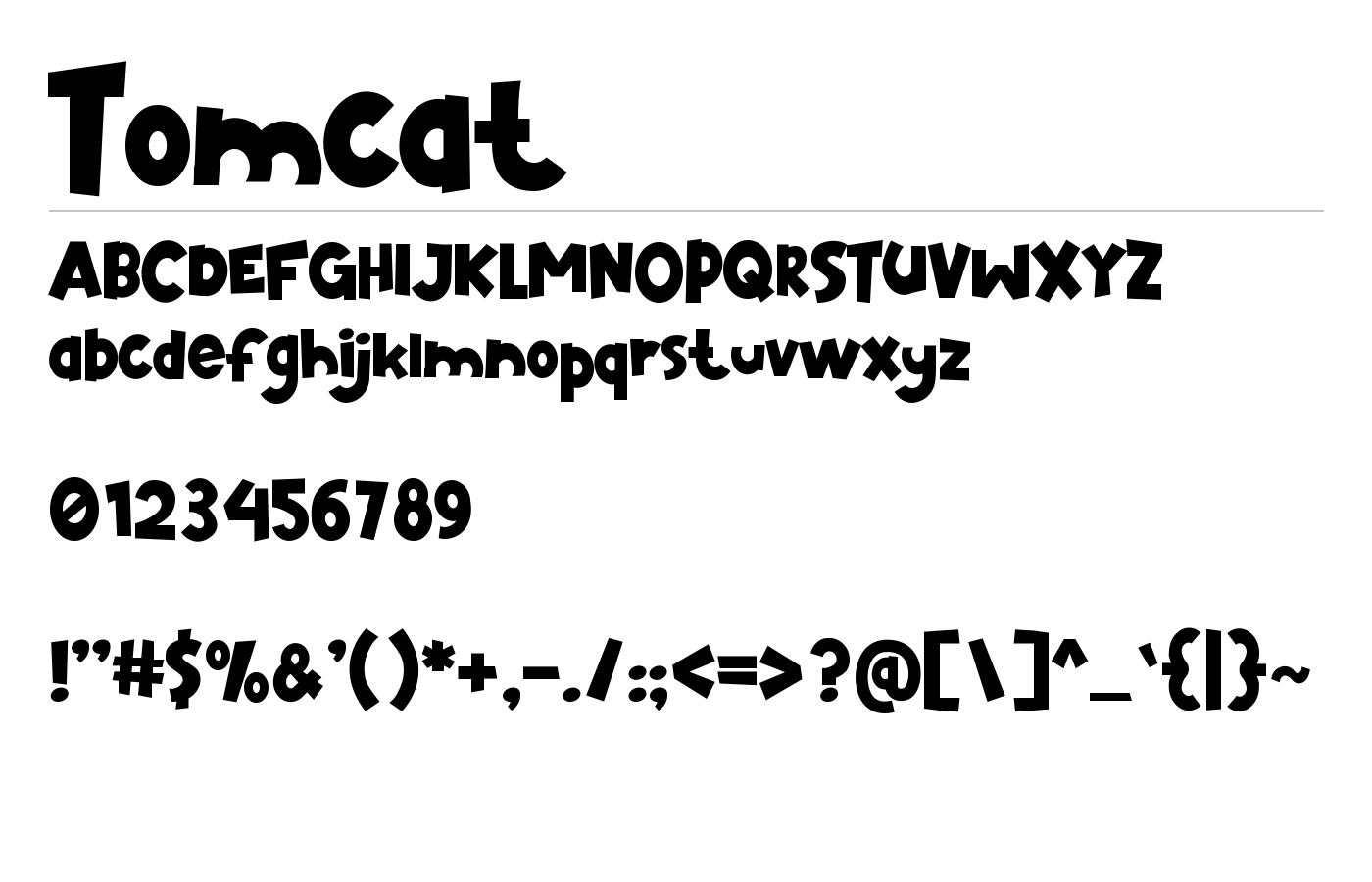
Tomcat is a bold, playful sans serif font with a strong, whimsical character. Its irregular shapes and lively strokes create a fun, informal vibe that is perfect for children's content, casual branding, or eye-catching headlines. With its bold weight and unique letterforms, Tomcat commands attention while maintaining a friendly and approachable style.
Tomcat Font
About Tomcat Font